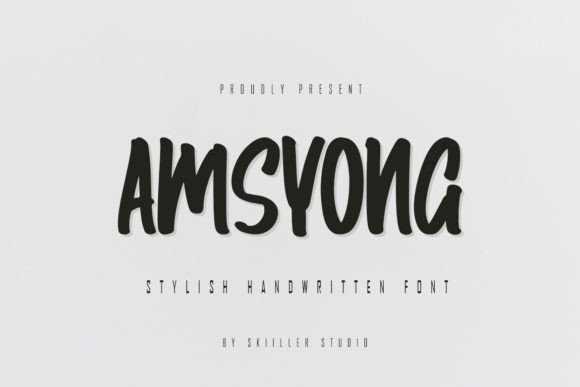
Prepare yourself to embark on a typographic odyssey with Amsyong, the font that ignites a symphony of emotions and breathes life into your designs. This enchanting display font, meticulously crafted by the ingenious minds at Skiiller Studio, is not merely a collection of letters—it's an invitation to unleash your creativity and paint your imagination across the digital canvas.
Amsyong is the embodiment of playfulness and charm, a font that dances across the screen with an infectious energy that is simply irresistible. Its whimsical curves and cheerful strokes evoke a sense of childlike wonder and infectious joy, making it the perfect choice for designs that aim to capture the essence of youth and innocence.
Picture this: a poster for a children's theater production, adorned with Amsyong's jubilant characters, beckons young audiences into a world of magic and adventure. The font's inherent warmth and friendliness create an instant connection, inviting children to embark on an unforgettable journey filled with laughter, wonder, and boundless imagination.
Or envision a vibrant website dedicated to early childhood education, where Amsyong's playful spirit shines through in every corner. The font's ability to engage and entertain young learners makes it an ideal choice for educational materials, transforming lessons into delightful experiences that spark curiosity and ignite a lifelong love of learning.
But Amsyong's allure extends far beyond the realm of childhood. Its versatility and charm make it a captivating choice for a wide range of design projects, from playful social media posts and eye-catching marketing campaigns to whimsical invitations and greeting cards.
Imagine a fashion brand's Instagram feed adorned with Amsyong's playful and stylish text, capturing the attention of fashion-forward consumers with its unique and memorable aesthetic. Or envision a vibrant festival poster, where Amsyong's exuberant characters come together to create a visual feast that beckons festival-goers to immerse themselves in a world of music, art, and pure joy.